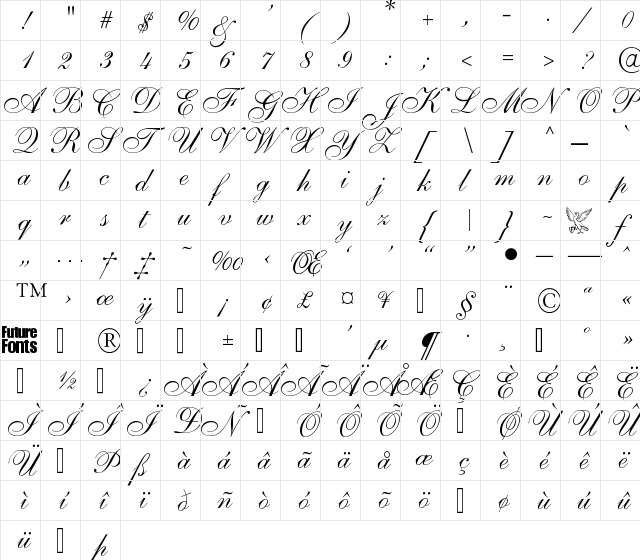
Sensibility 101 Ext Regular Font Preview
Sensibility 101 Ext Regular
Design Context for Sensibility 101 Ext Typeface
Sensibility 101 Ext is a composed and adaptable typeface that performs quietly and consistently across a wide range of design contexts.